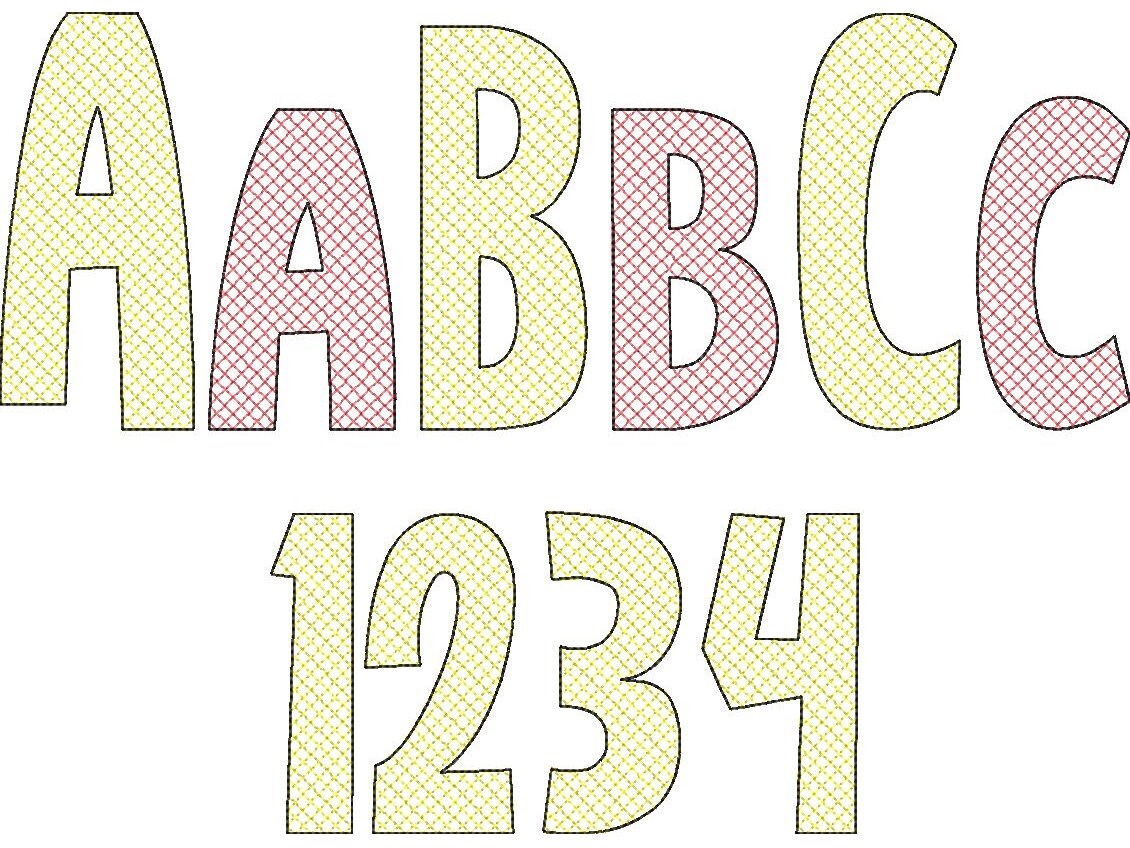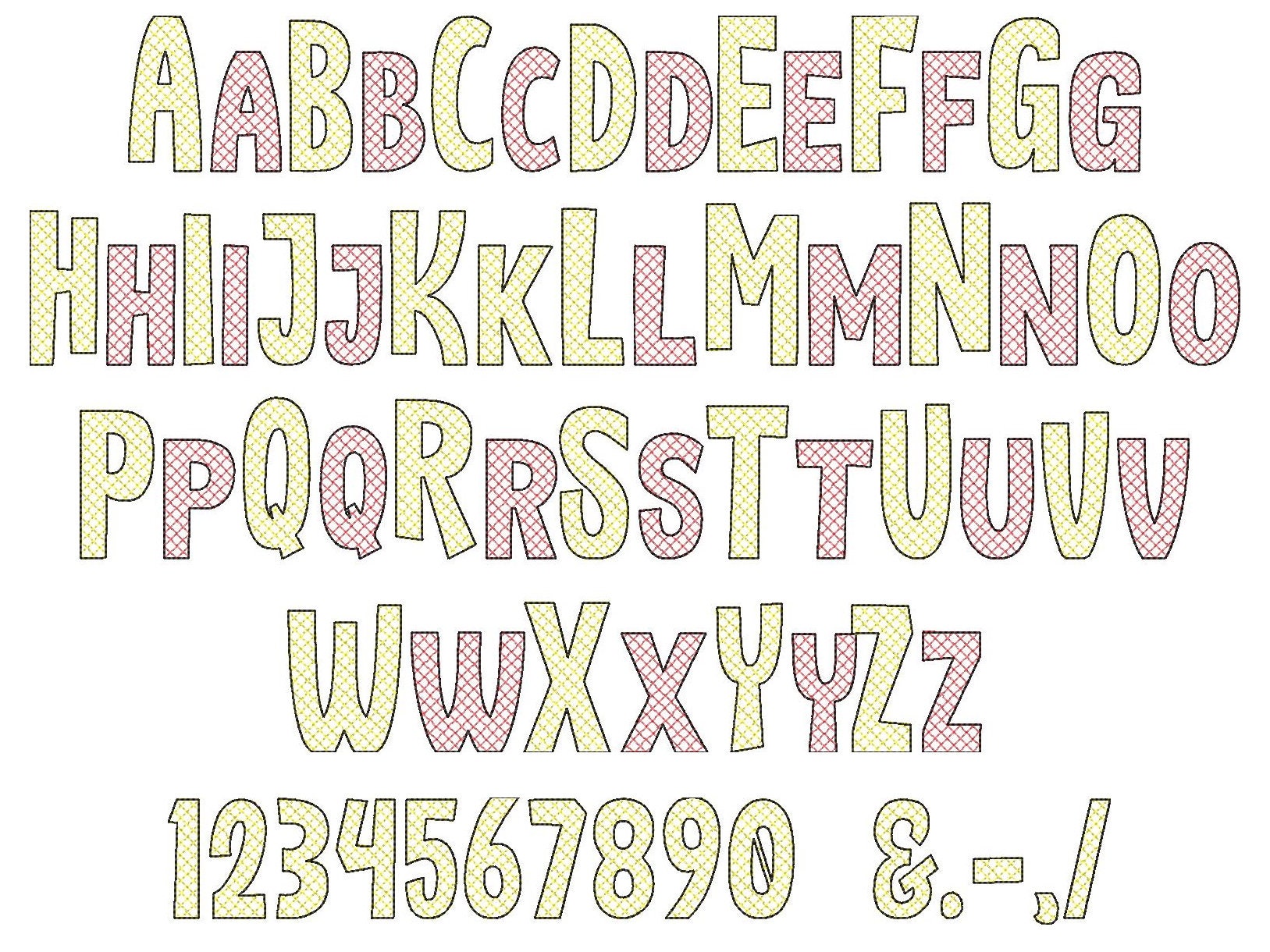
Quick light stitch Checked FONT machine embroidery designs in assorted sizes alphabet letters, playful kids girl boy name monogram, BX incl
Whole alphabet A-Z uppercase and lowercase, numbers and punctuation marks & . , - /
The design looks like lace, the background fabric looks through. Stunning effect!